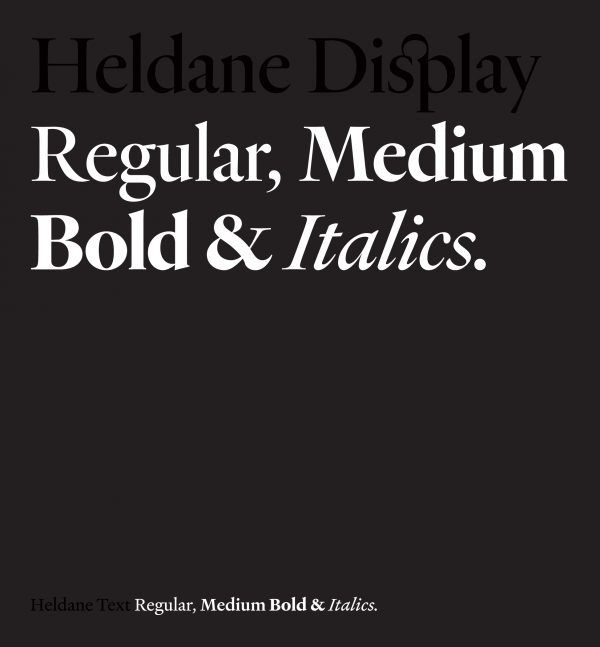
Heldane
Category—Typeface Design
Heldane
Designer(s)
Kris Sowersby, Wellington, New Zealand
Additional Credits
ENGINEER: Noe Blanco, Spain
TYPE FOUNDRY: Klim Type Foundry
CONCEPT:
Heldane is a contemporary serif family inspired by the renaissance works of Hendrik van den Keere, Claude Garamond, Robert Granjon, and Simon de Colines. Rather than emulating a specific font, Heldane amalgamates the best details from these sources into a cohesive whole. The classical typographic foundations of Heldane are refined with rigorous digital drawing.